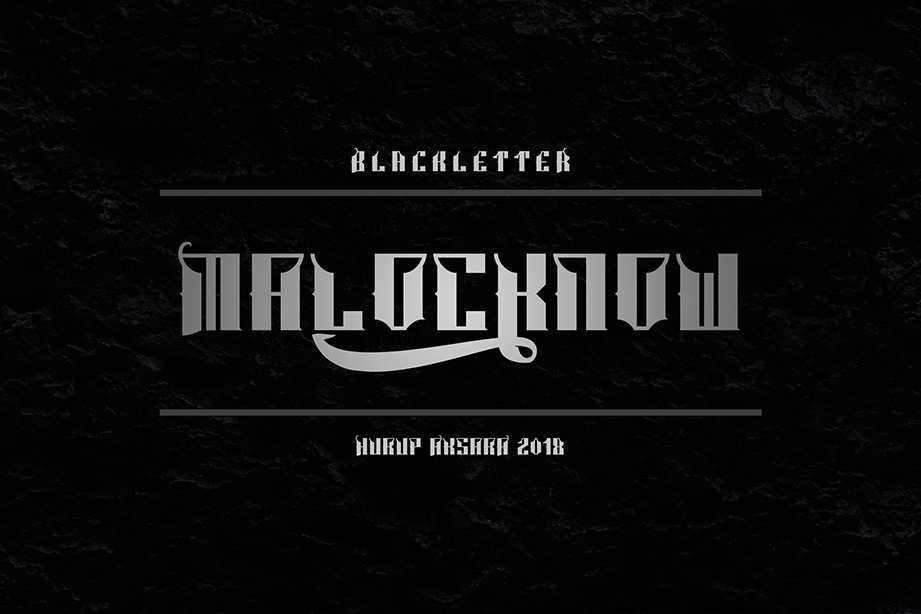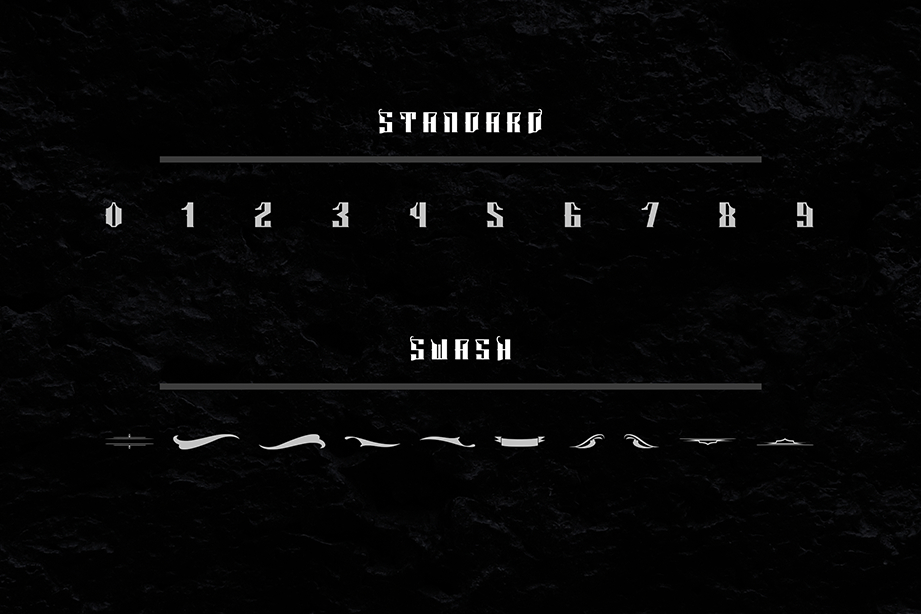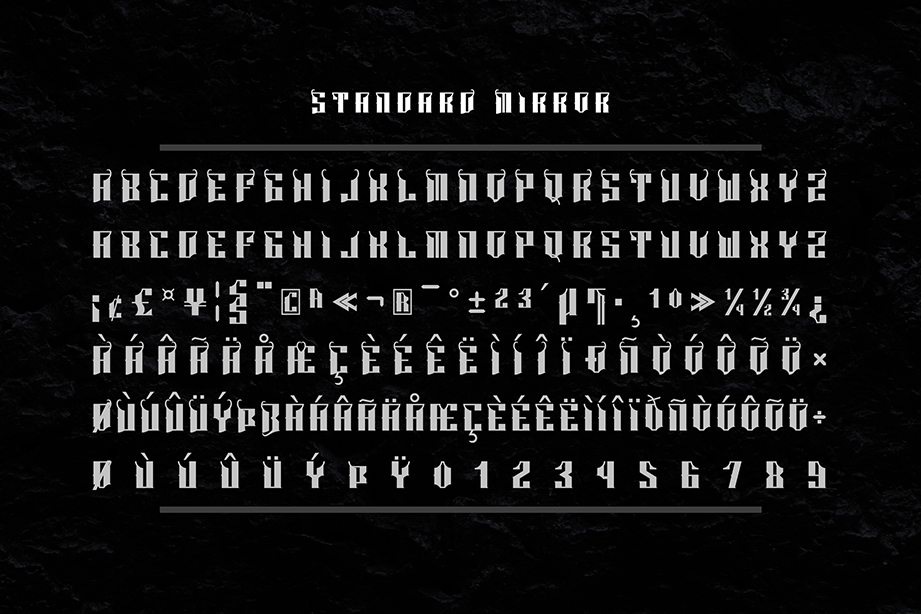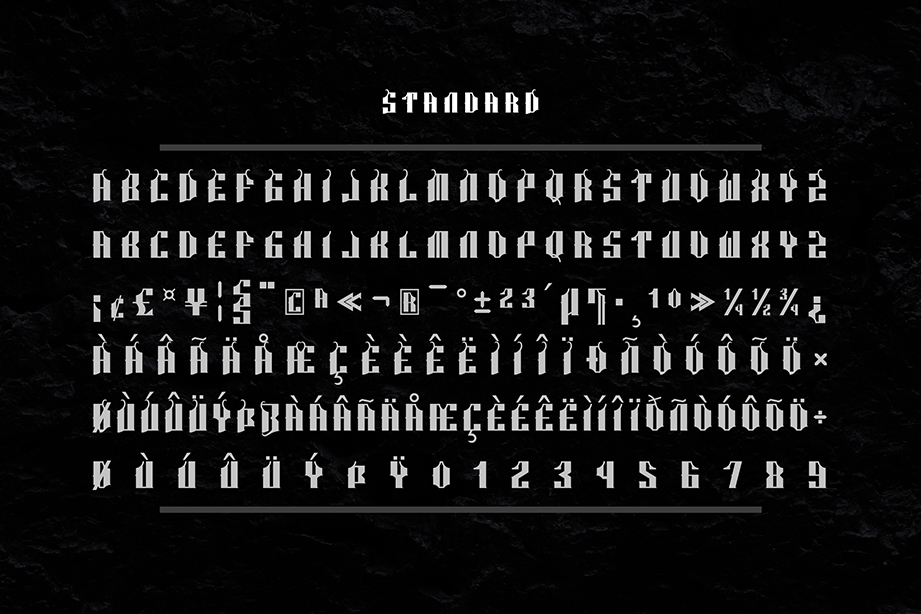
About Malocknow Font
The Malocknow is a vector-based blackletter typeface. It has a strong and sharp character which fits perfectly in striking designs.